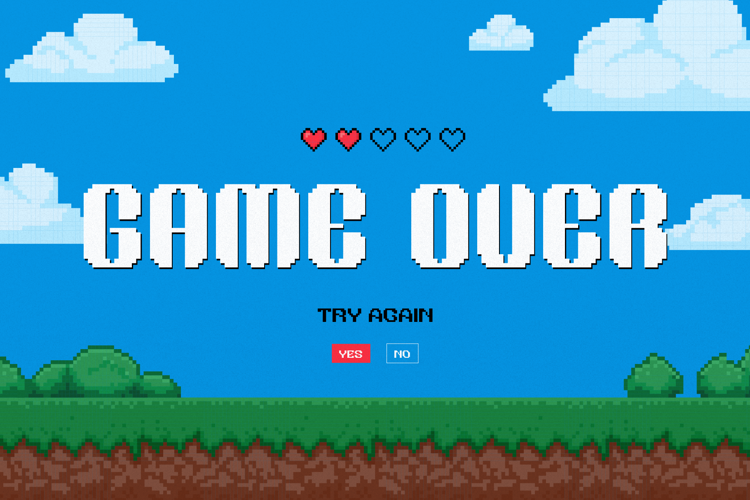
Eight Byte Font
Eight Byte | Pixel Font, is suitable for any projects such as: logos, branding projects, homeware designs, product packaging, mugs, quotes, posters, shopping bags, t-shirts, book covers, name card, invitation cards, greeting cards, label, photography, watermark, special events, and all your other lovely projects that need a Pixel f taste.